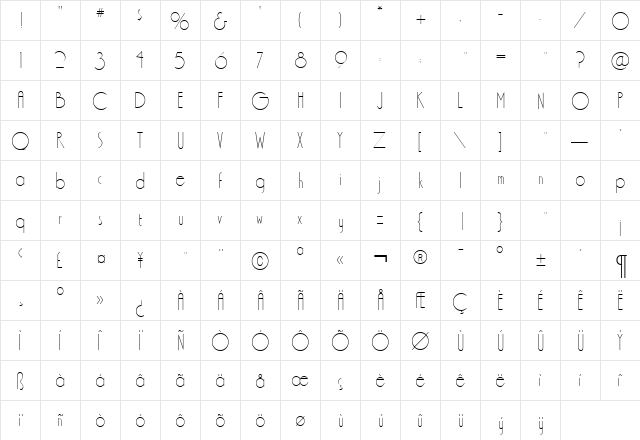
XctasySansRR Light Regular Font Preview
XctasySansRR Light Regular
Design Context for XctasySansRR Light Typeface
XctasySansRR Light offers clean, dependable letterforms without strong stylistic allegiance, making it a practical choice for designers who need flexibility. The delicate stroke weight brings airiness and refinement to layouts.